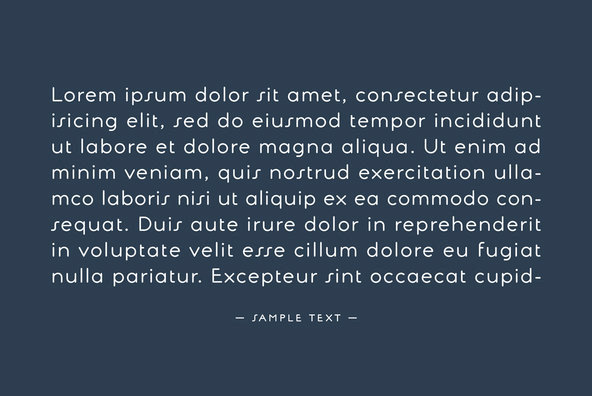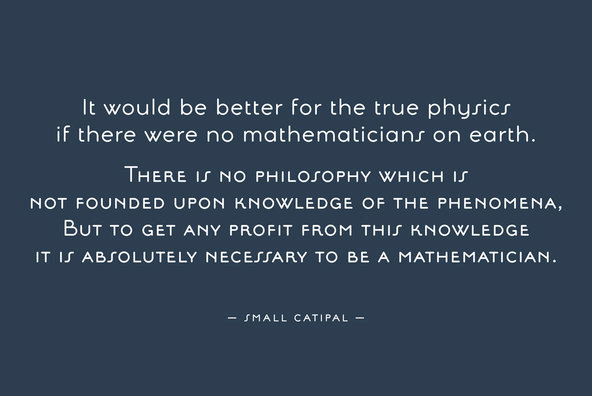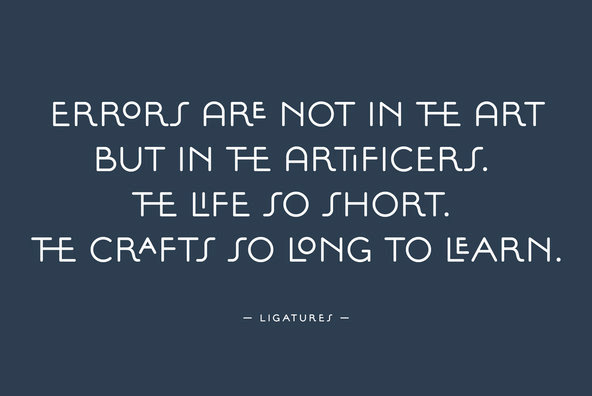
Legible, simple and very lovely sans serif is based on artdeco advertisment from 1800s to early 20th. The sweetest sans for your retro-style project.